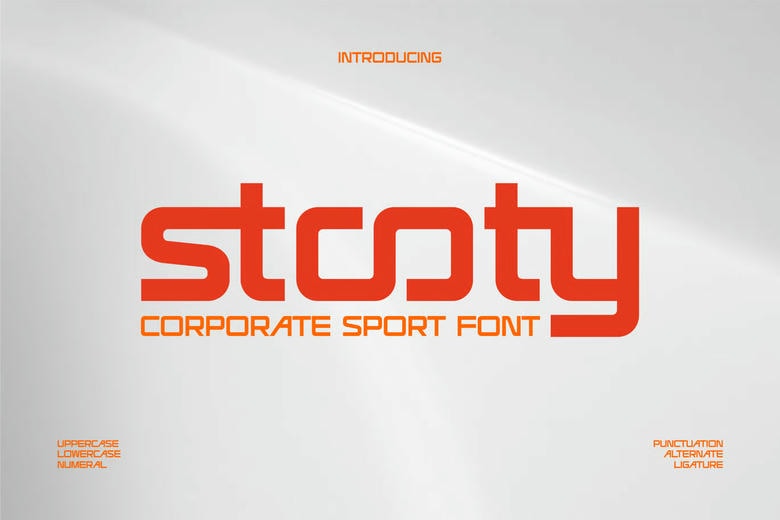
Stooty Font
Stooty is a bold and authentic display font. The font is suitable for any branding project like logo, esport, and many more. outstanding in a wide range of contexts.
Stooty Sans Serif Font